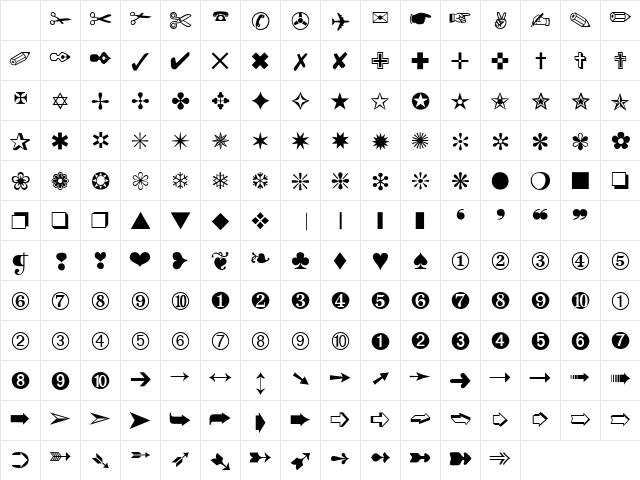
Complete Zap-Dingbats Normal glyph index. Displaying only characters natively supported by Zap-Dingbats Normal font.
Zap-Dingbats is a composed and adaptable typeface that performs quietly and consistently across a wide range of design contexts.